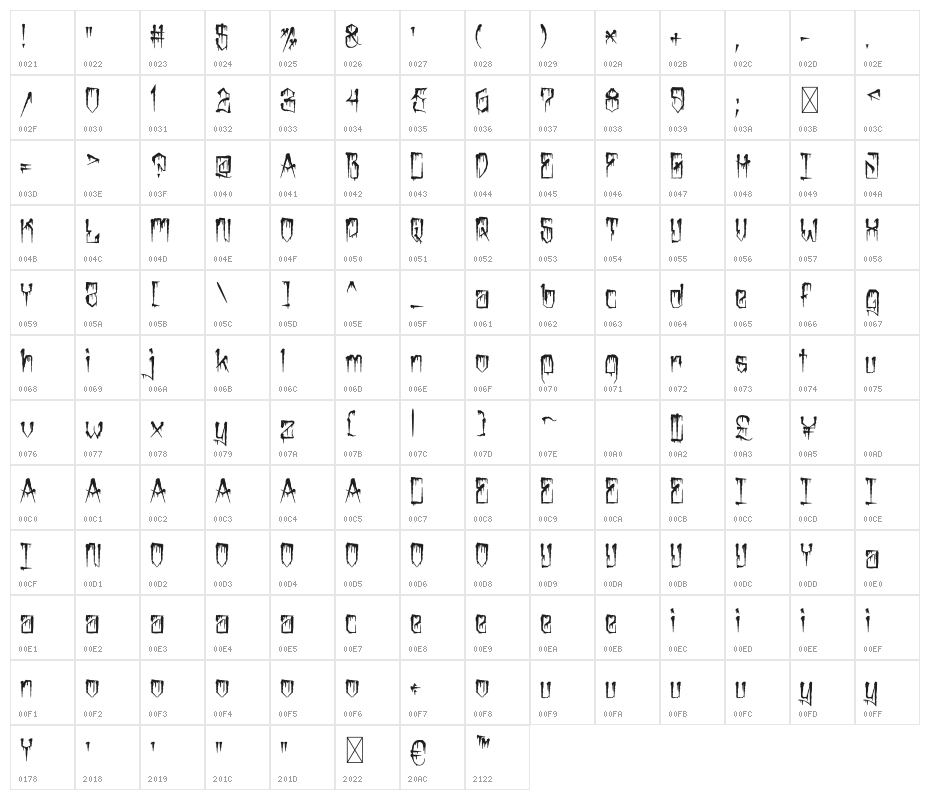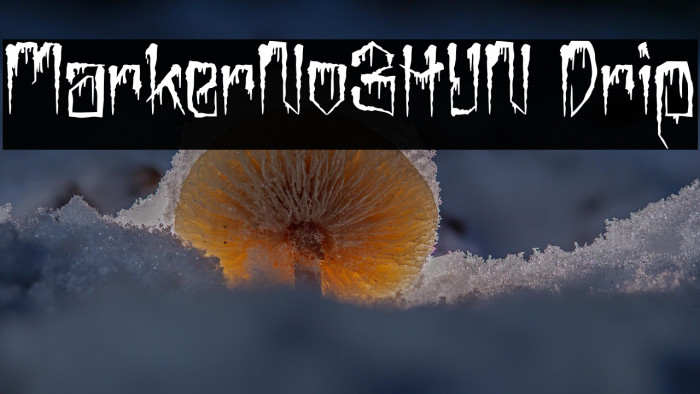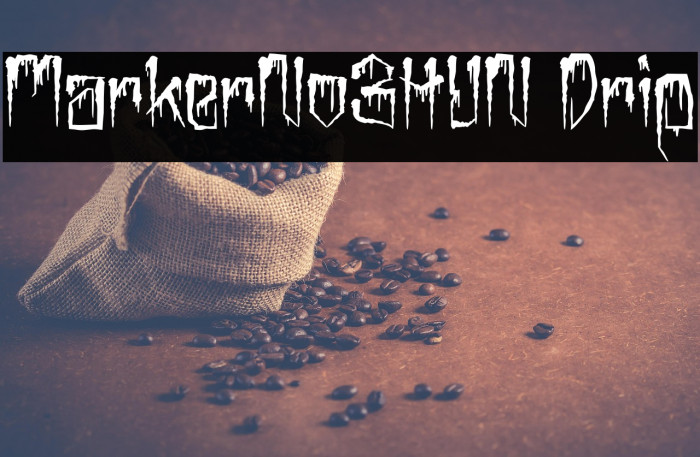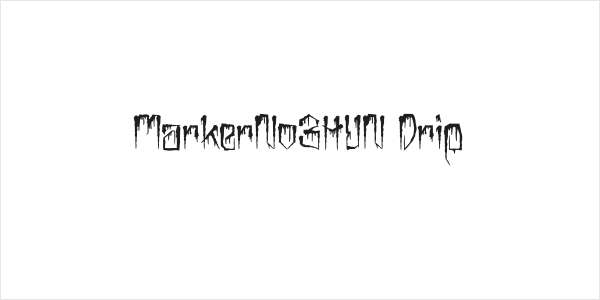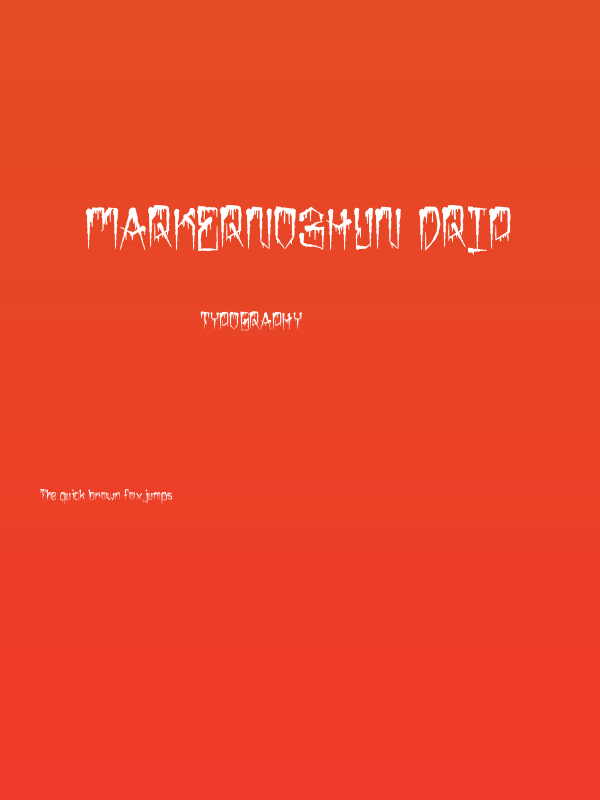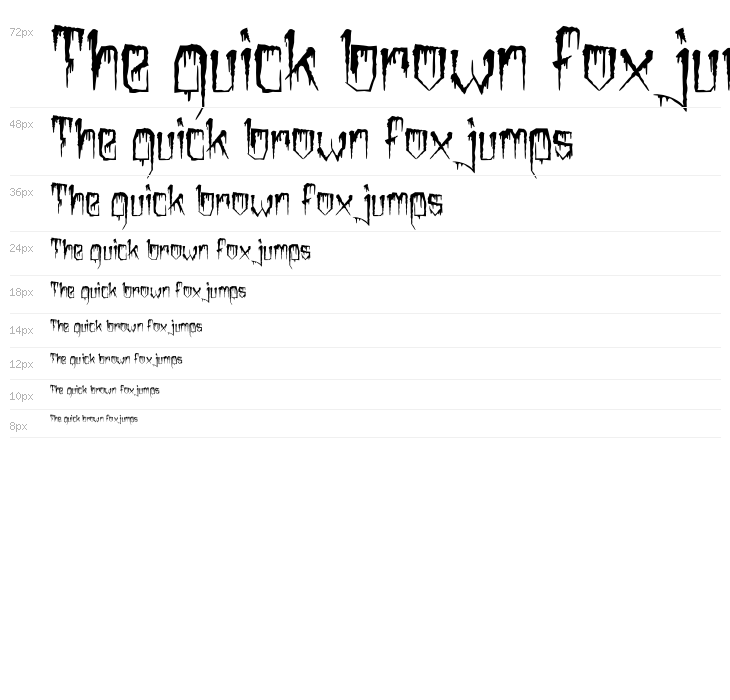
MarkerNo3HUN Drip Font
MarkerNo3HUN Drip Description
This font features a dramatic and edgy design, characterized by its dripping effect that gives each character a sense of movement and fluidity. The uppercase and lowercase letters maintain a consistent style, with sharp edges and elongated strokes that mimic the appearance of dripping ink or paint. The numerals and special characters follow the same aesthetic, ensuring a cohesive look across all text. This font is particularly striking due to its high contrast between thick and thin strokes, enhancing its bold and impactful appearance. The overall style is distinctly decorative, making it ideal for projects that require a strong visual statement.
| Proposed Projects | Ideal for horror-themed designs, Halloween posters, album covers, and edgy branding projects. |